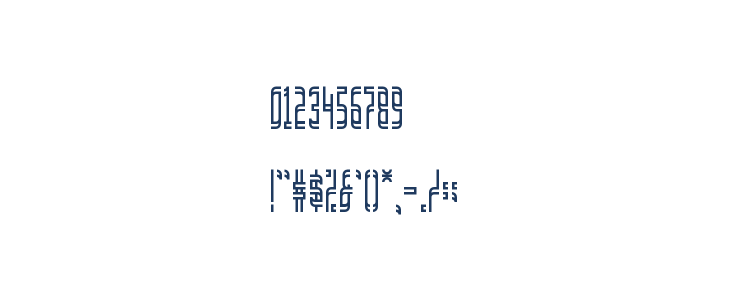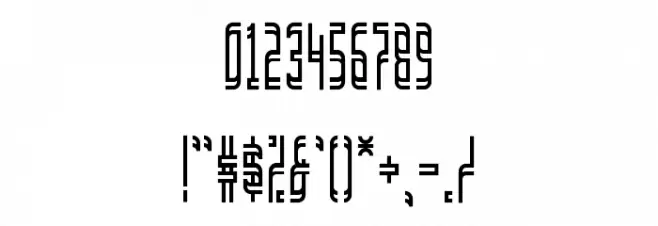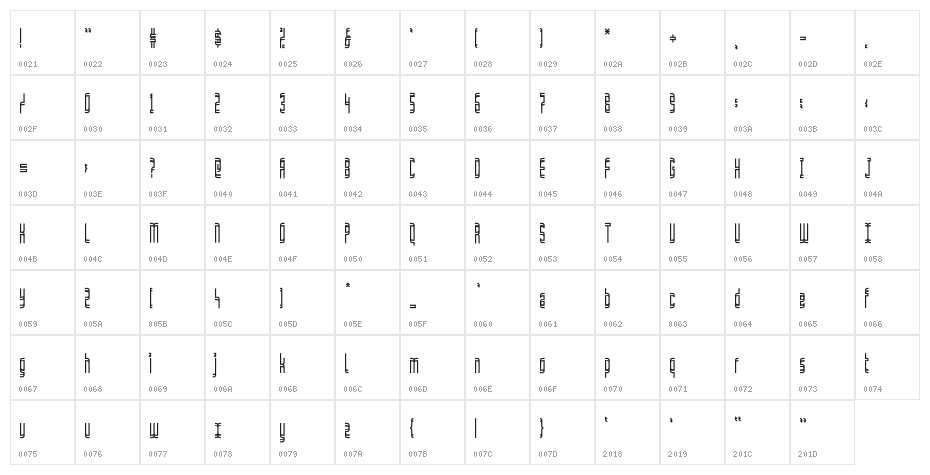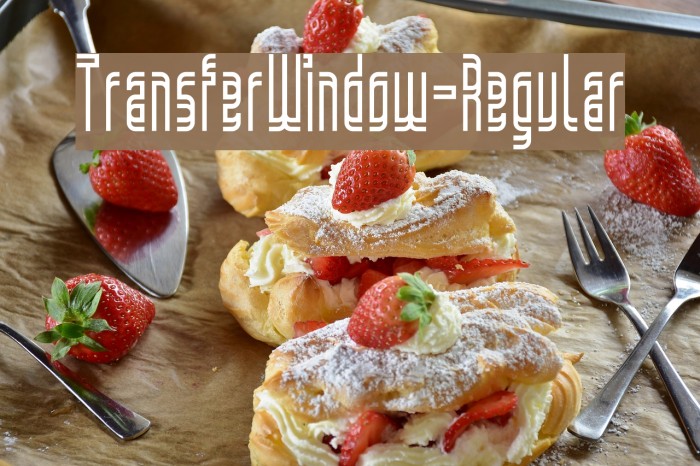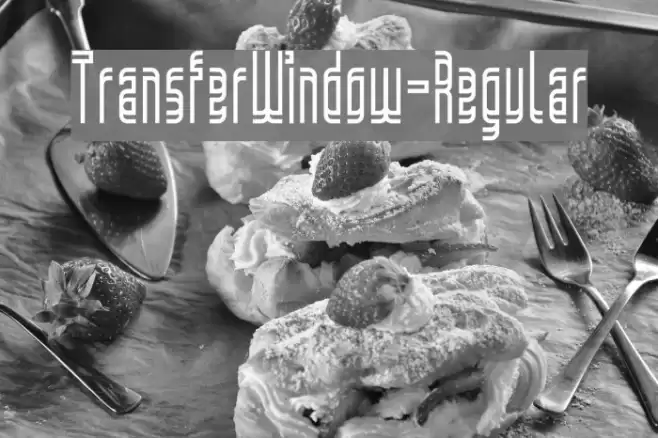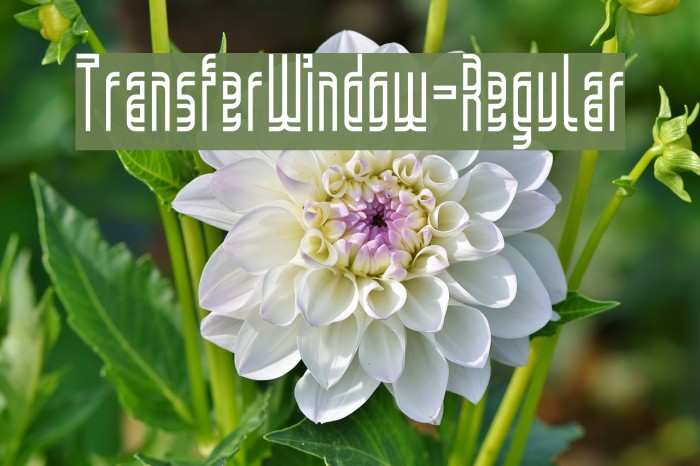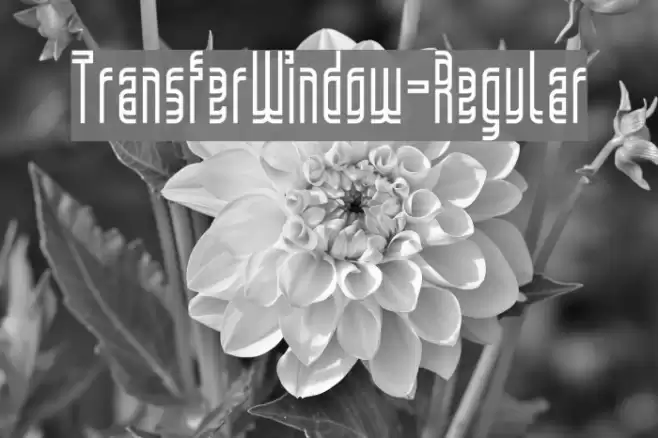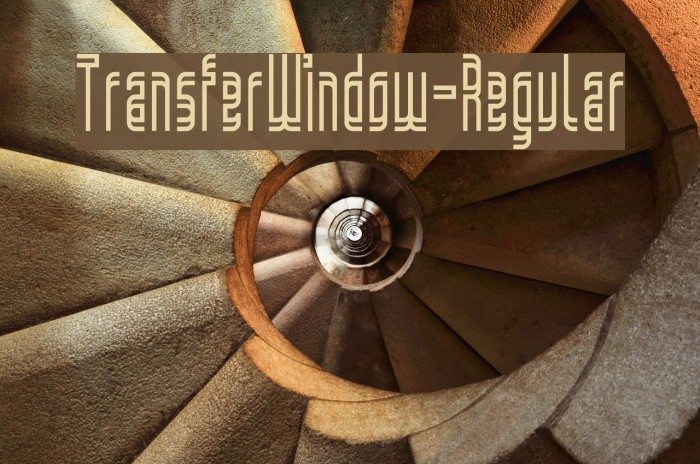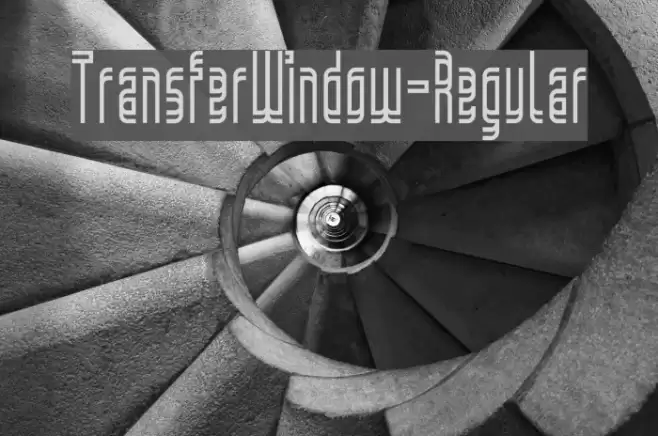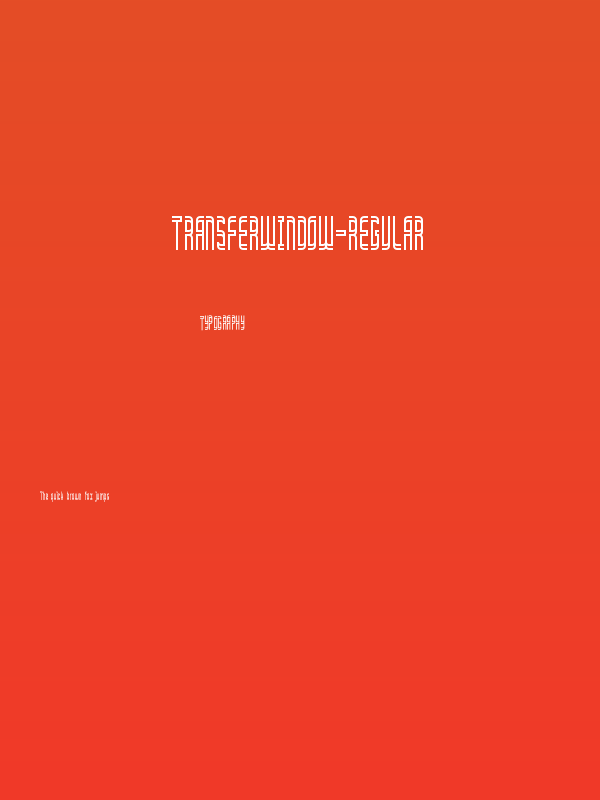
TransferWindow-Regular Font
TransferWindow-Regular Description
This font features a modern and geometric design with a distinct, futuristic appeal. The characters are constructed with clean, straight lines and sharp angles, giving them a mechanical and structured appearance. The uppercase and lowercase letters maintain a consistent height, contributing to a uniform look across the typeface. The numerals and special characters follow the same design principles, ensuring cohesion throughout. The font's unique style makes it stand out, suitable for projects that require a contemporary and edgy aesthetic.
| Proposed Projects | Ideal for tech-related branding, futuristic posters, digital interfaces, and modern art projects. |